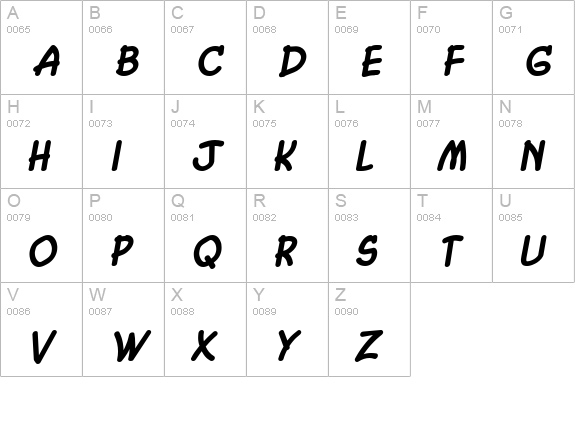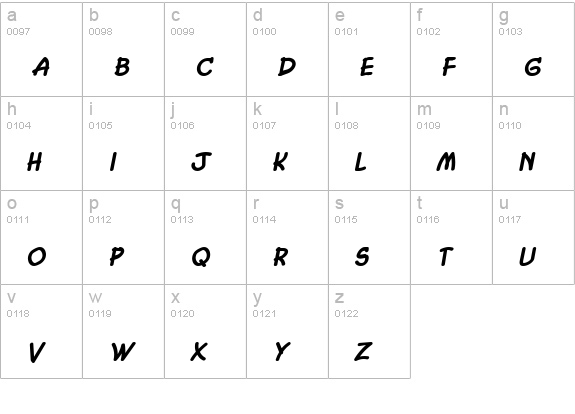
Chasm BoldItalic is a striking and versatile typeface that exudes modernity and sophistication. Its bold and italic design commands attention and adds a touch of elegance to any project. Perfect for headlines, titles, and branding, this font is sure to make a statement. What sets Chasm BoldItalic apart is not only its sleek and contemporary look but also the fact that it is available for free download at FontsMarket.com. This means that you can access this high-quality font without any cost, making it a valuable addition to your design toolkit. Whether you're working on a website, poster, presentation, or any other project, Chasm BoldItalic is a fantastic choice for adding a touch of flair and creativity. Download it today and elevate your designs with this beautiful and free font.